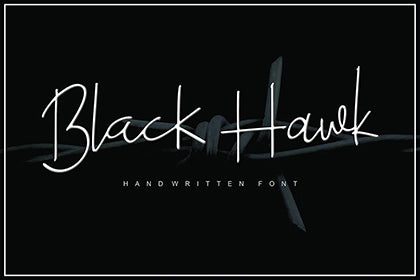
Free Black Hawk Stylish Font Demo
Free black hawk stylish font demo for graphic designers that need to present their work in a professional way. Download this free font from the original source of Free Design Resources. This is absolutely fancy font so you can easily make world-class designs.